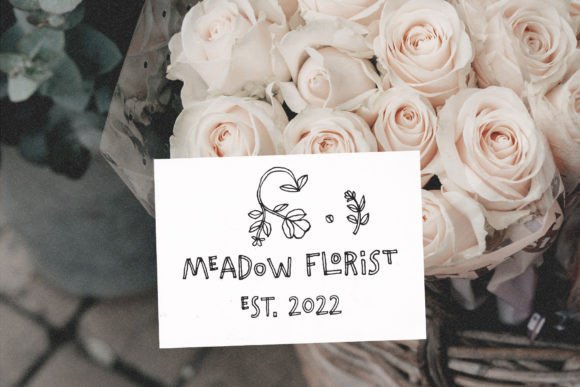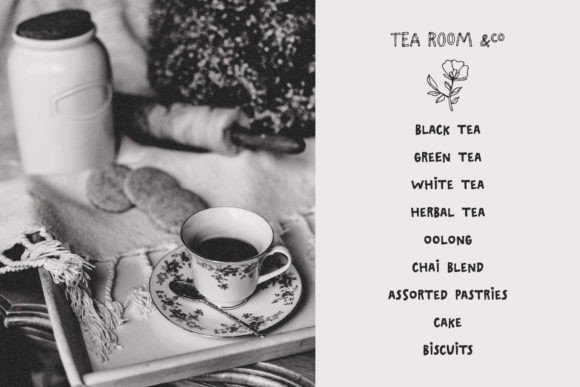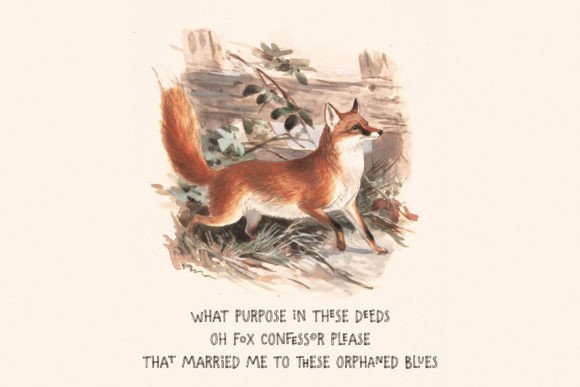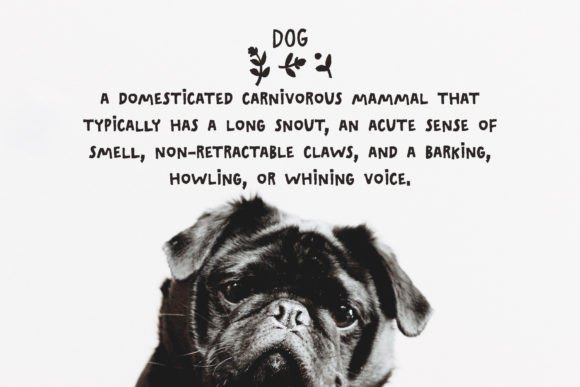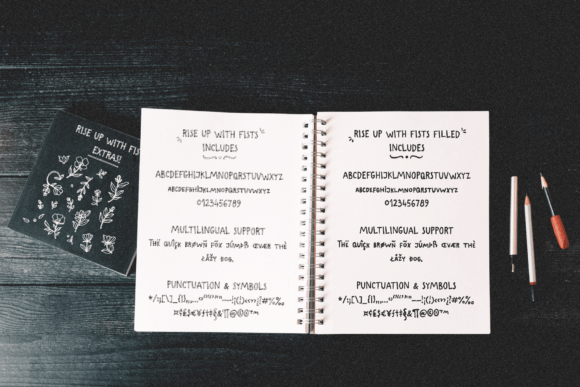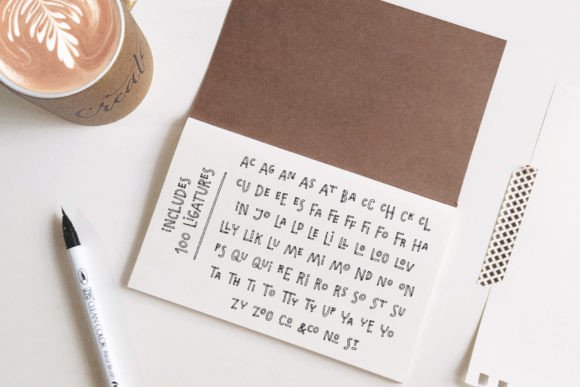
Introduction to Rise Up with Fists Font
Do you remember the thrill of rummaging through a dusty old art supply box, searching for the perfect pen to bring your latest creative project to life? For many designers, that moment is what sparks the magic of their work. And when it comes to making a statement, there’s no better tool than a bold, eye-catching font.
Enter the Rise Up with Fists Font, a fun and expressive handwritten font that’s perfect for designers looking to add a little extra oomph to their work. With its high-quality design and transparent background, this font is a valuable resource for anyone looking to elevate their creative output. And the best part? It’s available for free download, making it an accessible design resource for designers of all levels.
- Unique characteristics: The Rise Up with Fists Font features bold, dynamic letterforms and a striking design that is sure to make a statement in any creative project.
- Perfect for bold statements: This font is ideal for designers who want to add a touch of confidence and strength to their designs, making it perfect for motivational and inspirational projects.
Honest Review: Rise Up with Fists Font
I recently had the chance to work with the Rise Up with Fists Font in a creative project, and I must say it’s been a game-changer. The font’s high quality and unique design made it perfect for the job. One of the standout features is its transparent background, which allowed for seamless integration into the project.
- ✨ Unique and bold design, great for making a statement
- ✨ High quality, looks great on any platform or device
- ✨ Transparent background, perfect for layered designs
However, I did encounter some limitations with the font. ⚠️ It’s not suitable for projects that require a lot of fine-tuning, as the bold design can be overwhelming. Additionally, the font may not be compatible with older software or operating systems.
Overall, I’m really impressed with the Rise Up with Fists Font. Its unique design and high quality make it a great addition to any design project. Just be mindful of its limitations and use it accordingly. If you’re looking for a bold, eye-catching font, I highly recommend giving it a try.
For a high-quality design, use the Rise Up with Fists Font in combination with a transparent background. This will allow your text to stand out and create a visually appealing effect. You can also experiment with different font sizes and styles to add depth and interest to your design.
The Rise Up with Fists Font is perfect for a variety of creative projects, including posters, flyers, and social media graphics. Its bold and eye-catching design makes it ideal for use in headings and titles. You can also use it to add a touch of personality to your designs and make them stand out from the crowd.